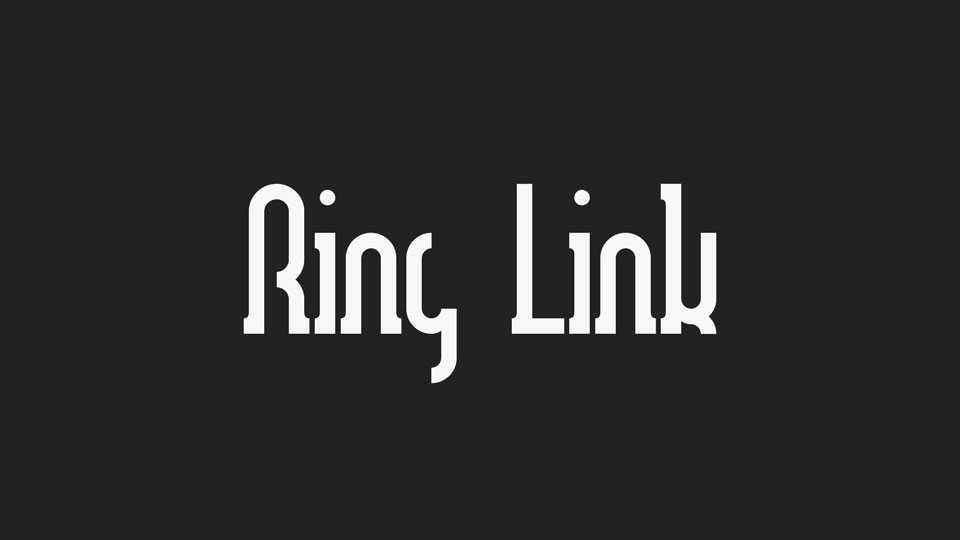
Download Ring Link font, a typeface within the larger Ochakov Foundry Ring superfamily. Ring font has a little story. It was created as a challenge for Typography Exhibition in Moscow
Designer: Dmitry Ochakov